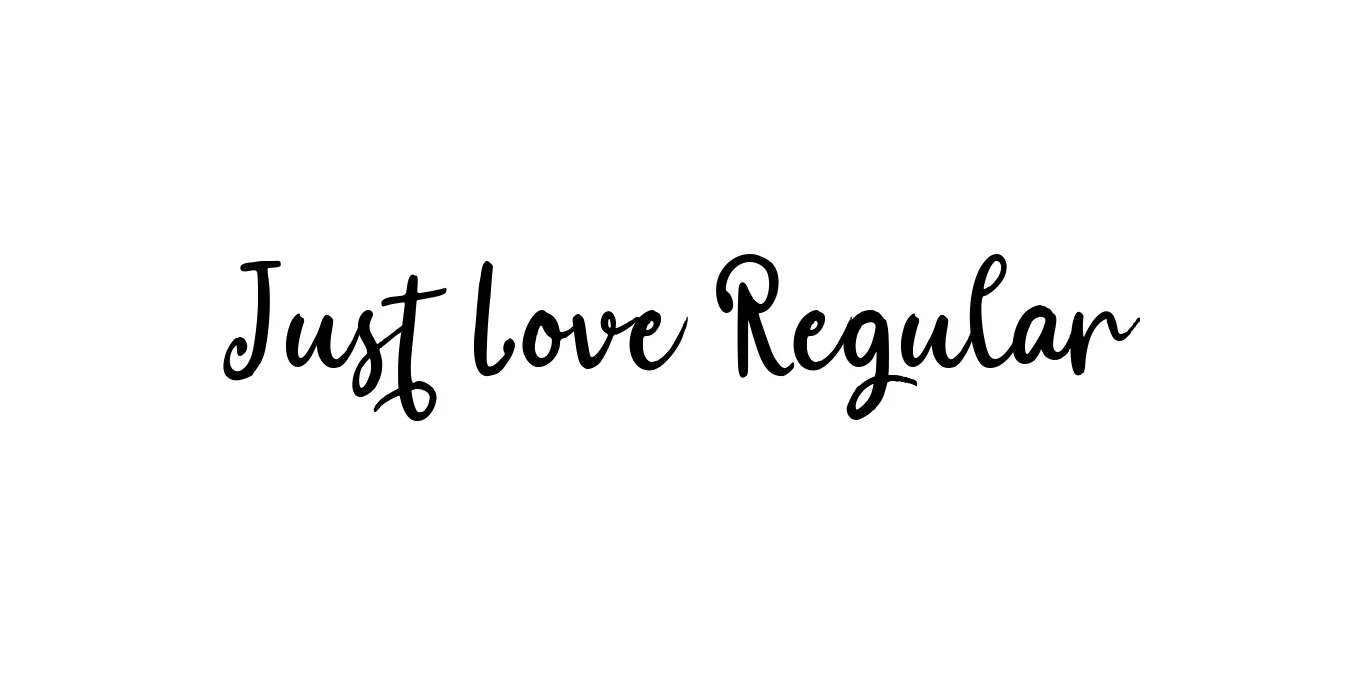
Just Love Regular
Designed by Hanken Design Co.
Just Love Regular is an elegant and contemporary script typeface that embodies grace and personal connection. Featuring flowing letterforms and a gentle, hand-drawn aesthetic, it is specifically crafted to bring a touch of sophistication to any design project. Its organic rhythm and smooth connections make it particularly effective for capturing a sense of intimacy and warmth in digital and physical media.
Created by the talented team at Hanken Design Co., this font has found its niche in high-end lifestyle branding and wedding stationery. Beyond its purely aesthetic appeal, Just Love Regular maintains a high level of legibility for a script face, allowing it to transition seamlessly from delicate print invitations to modern web headers and social media content.
Just Love Regular Best Uses
Perfect for elegant and romantic ceremony invites and stationery.
Adds a personalized, hand-written feel to creative lifestyle posts.
Ideal for sophisticated branding in the beauty, fashion, and lifestyle sectors.
Works beautifully as a pull-quote or decorative header font in magazines.